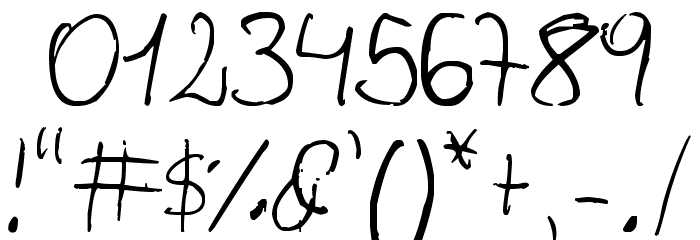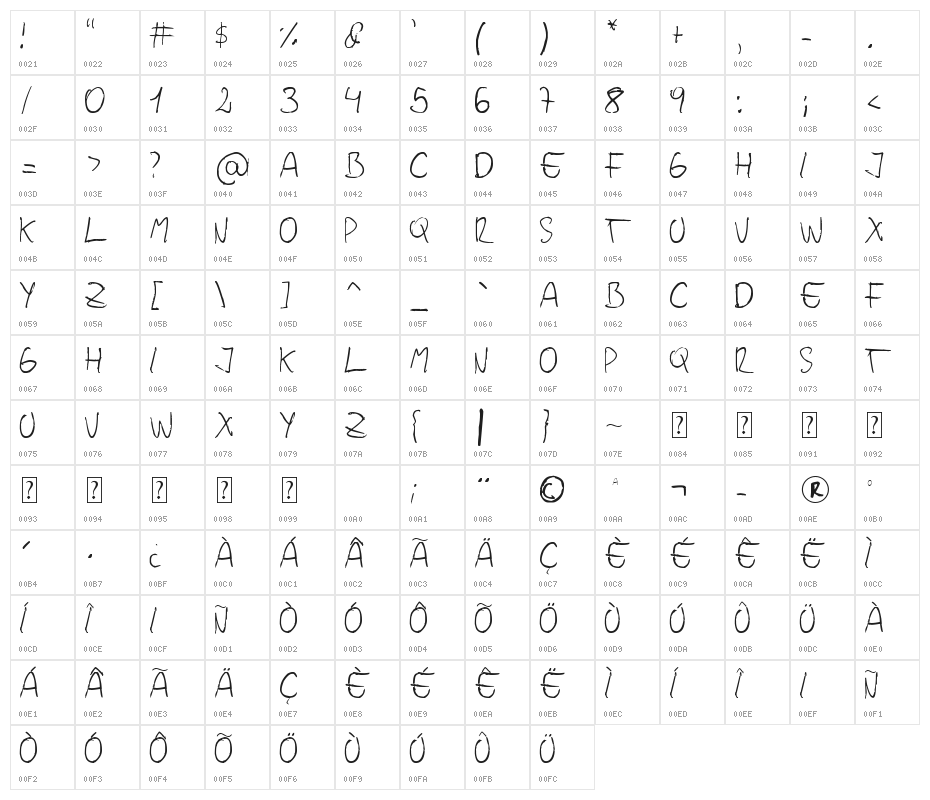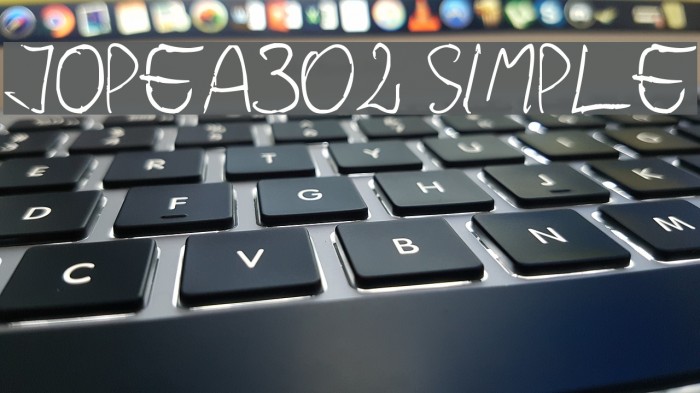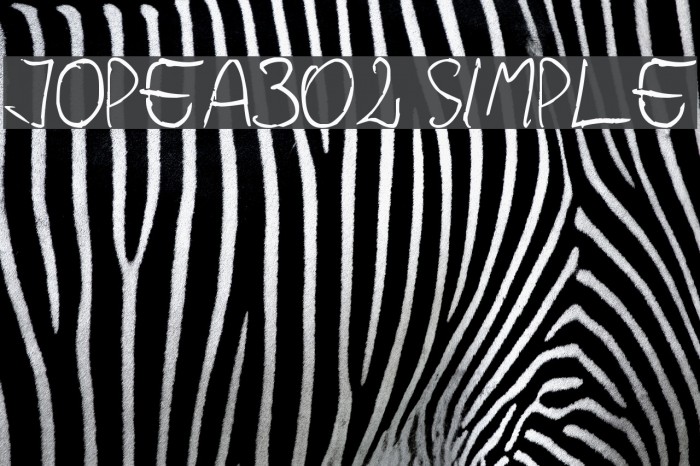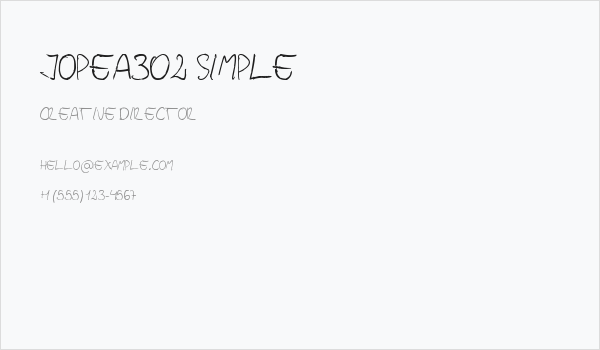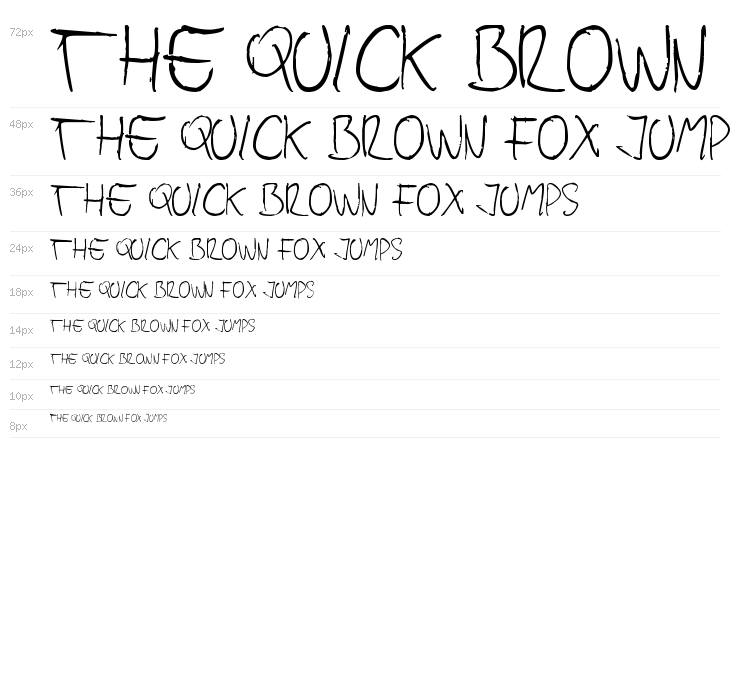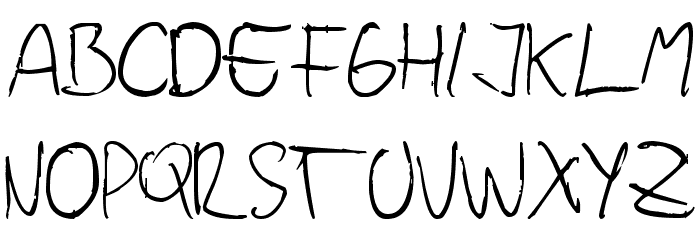
jopea302 Simple Font
jopea302 Simple Description
This font features a handwritten style with a casual and artistic flair. The characters are uneven and slightly irregular, giving it a natural and spontaneous feel. The strokes are varied in thickness, adding a dynamic and lively quality to the text. The uppercase and lowercase letters maintain a consistent style, while the numerals and special characters complement the overall aesthetic. This font is ideal for projects that require a personal touch or a creative, informal appearance.
| Overall Style | Casual, Artistic |
| Use Case | Headlines, Creative projects, Informal communications |
| Proposed Projects | Ideal for greeting cards, personal blogs, creative posters, and artistic branding. |